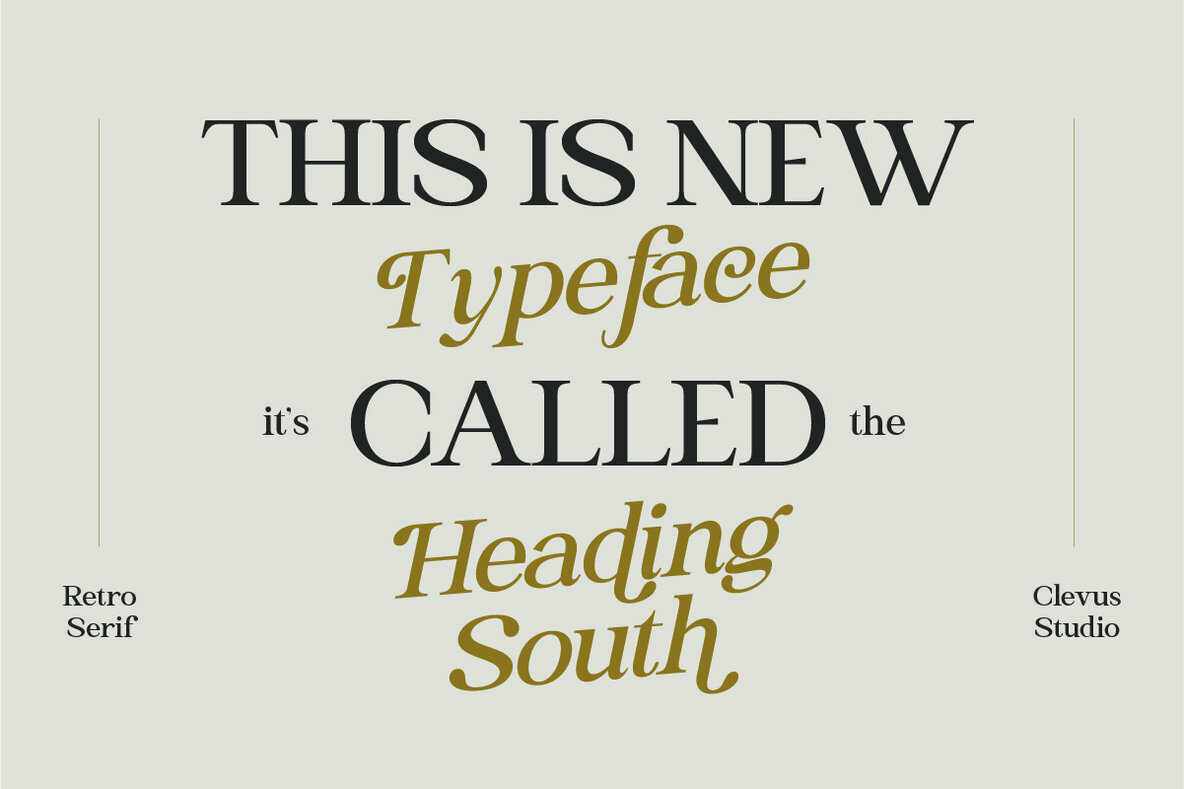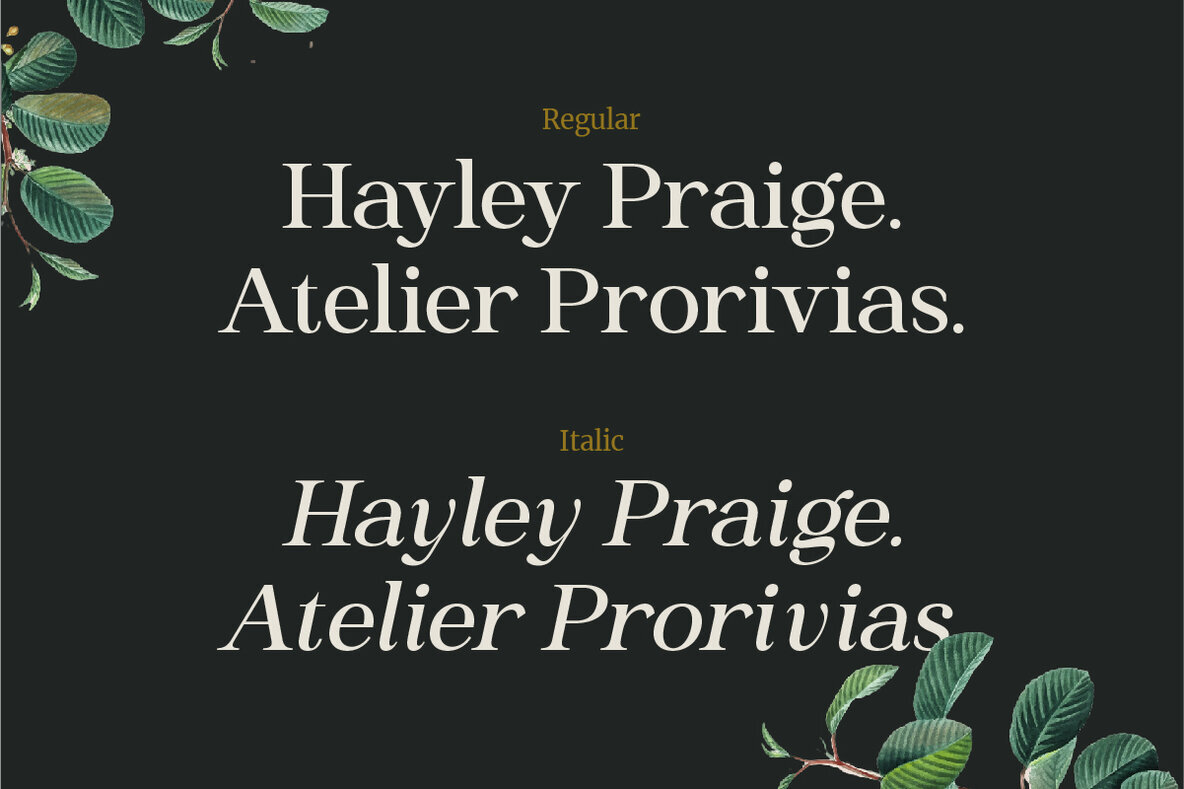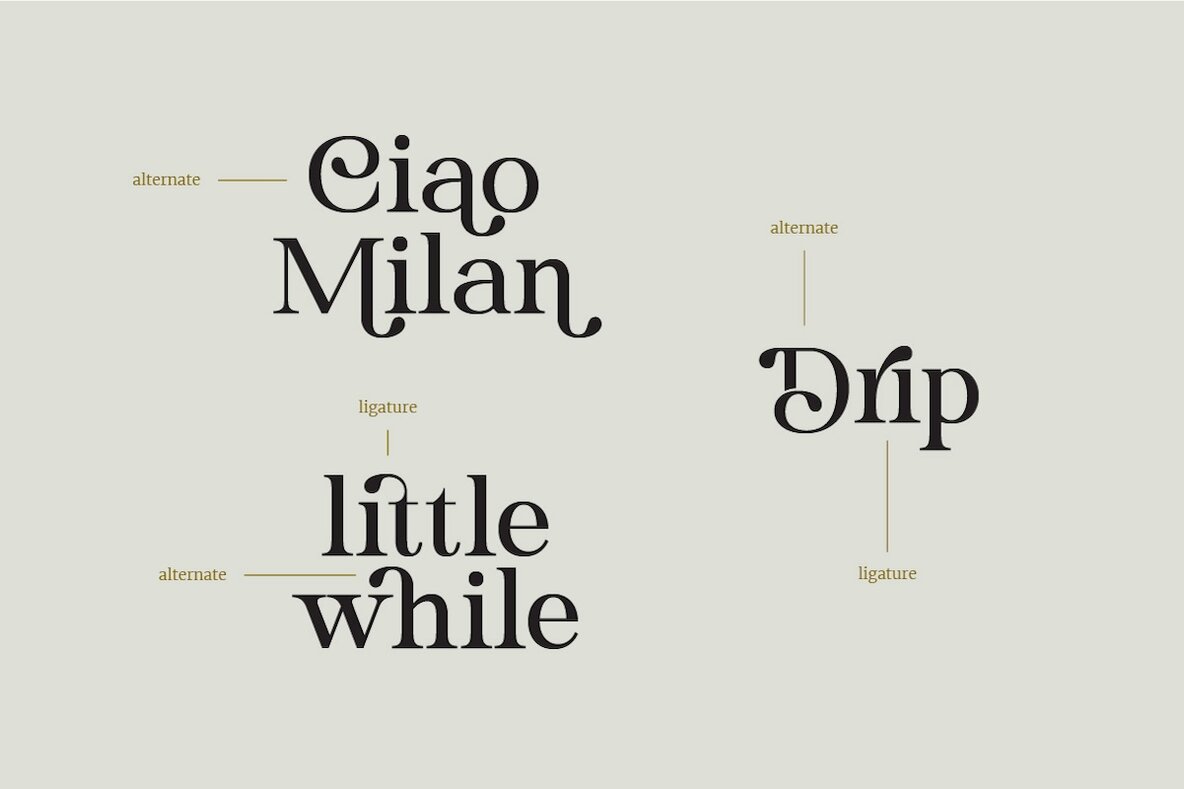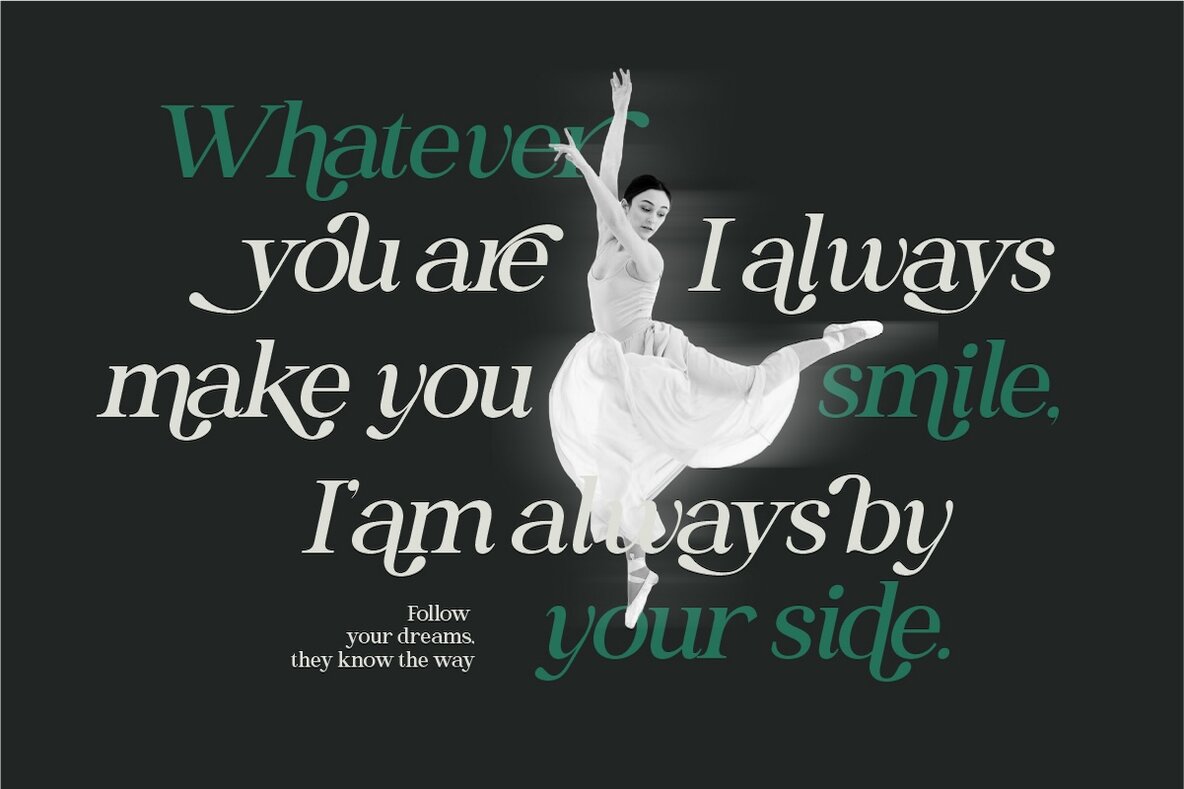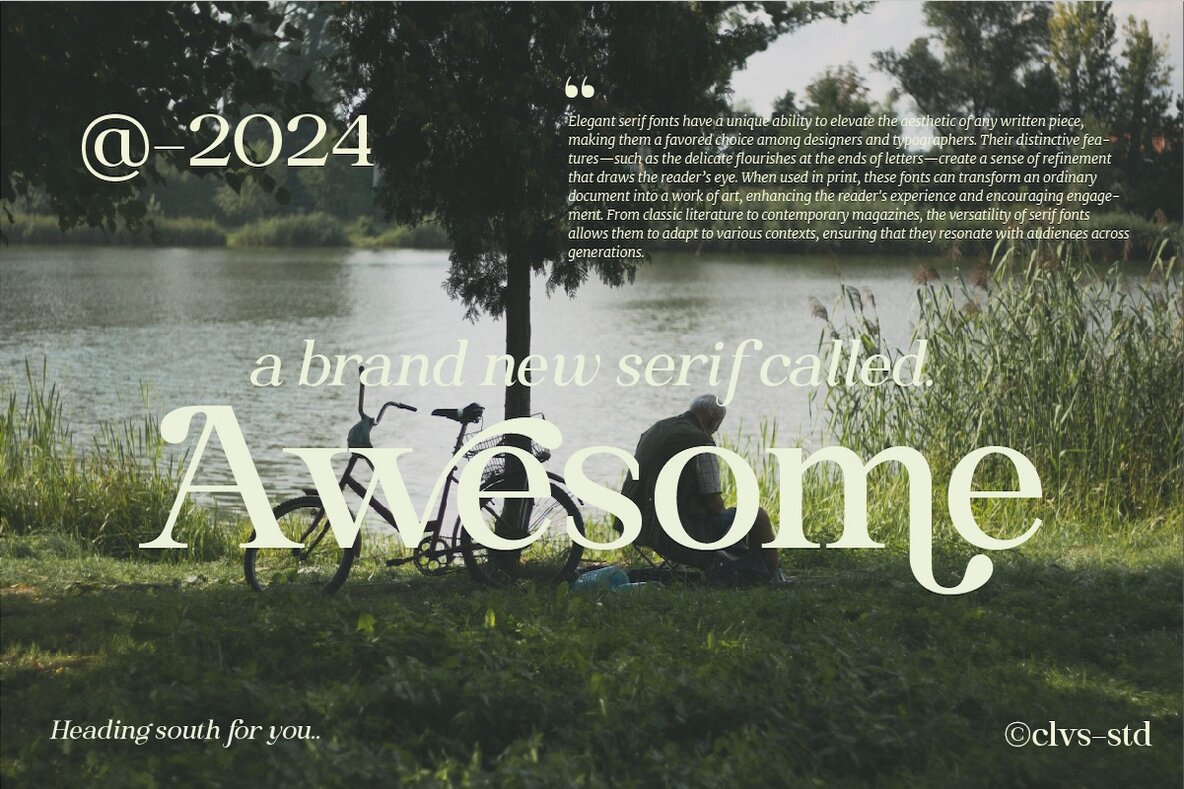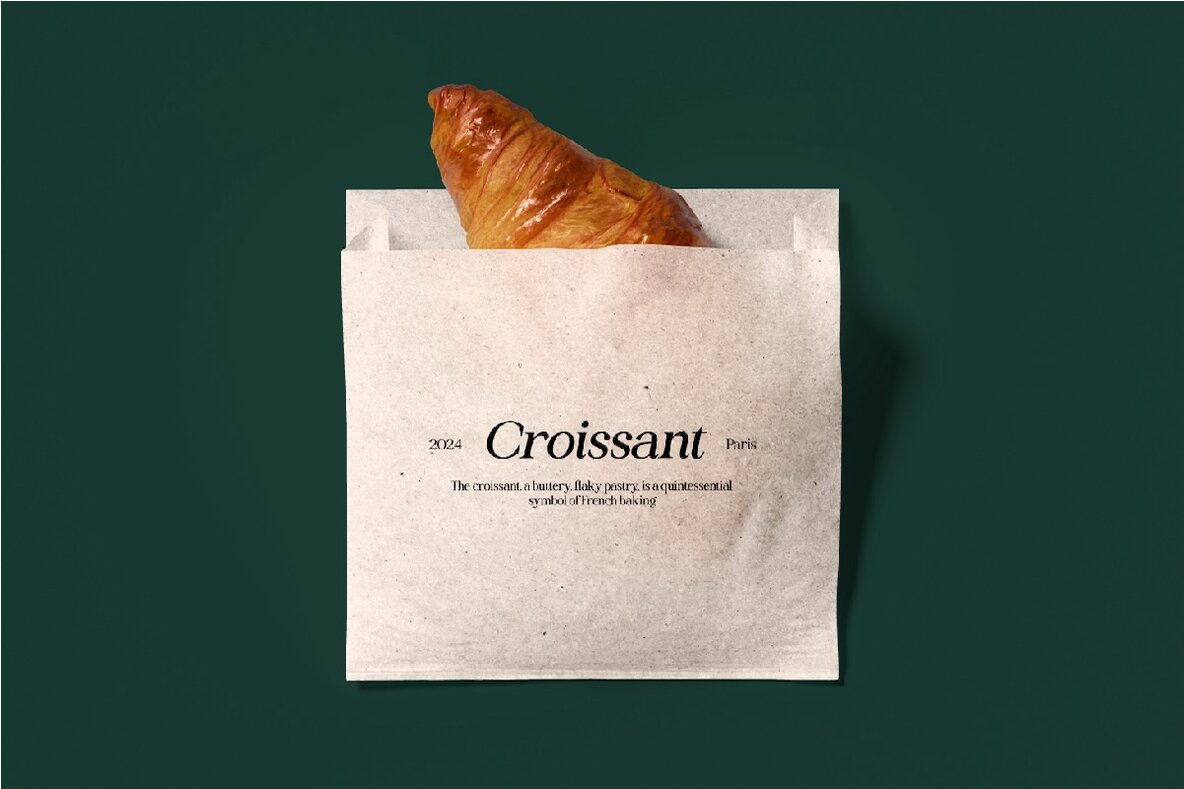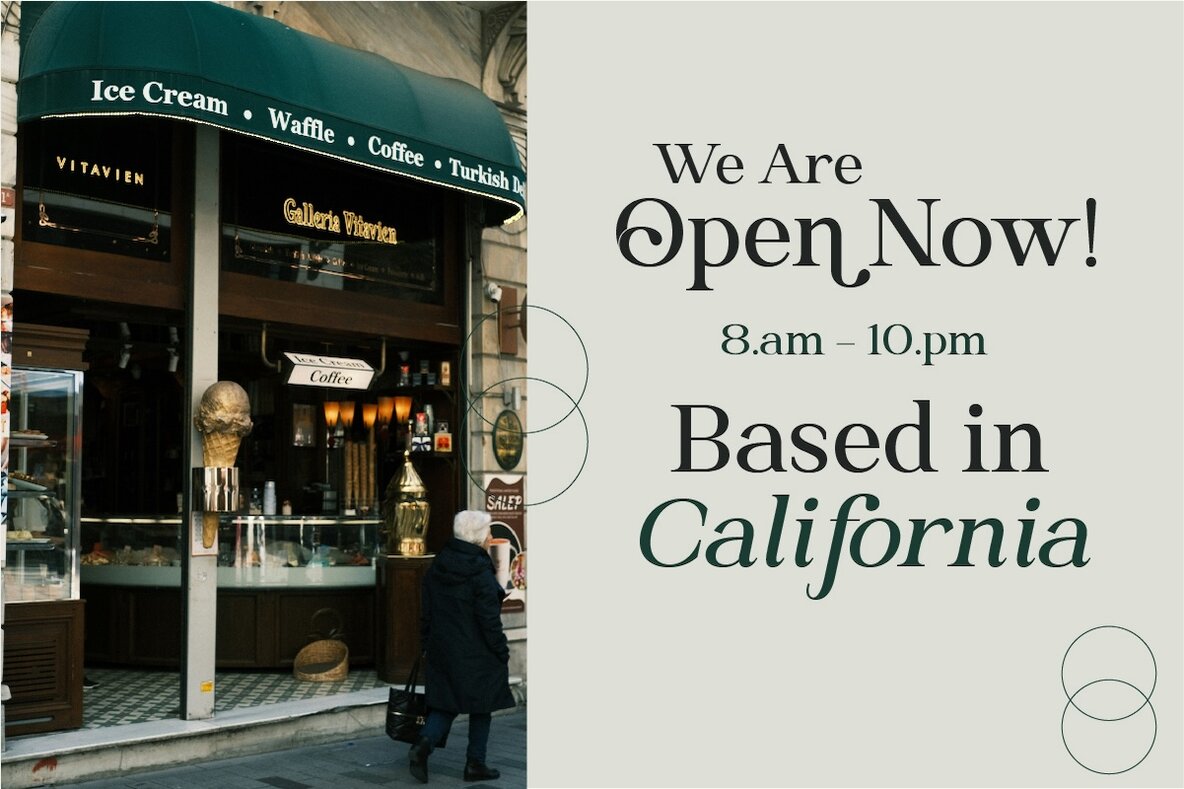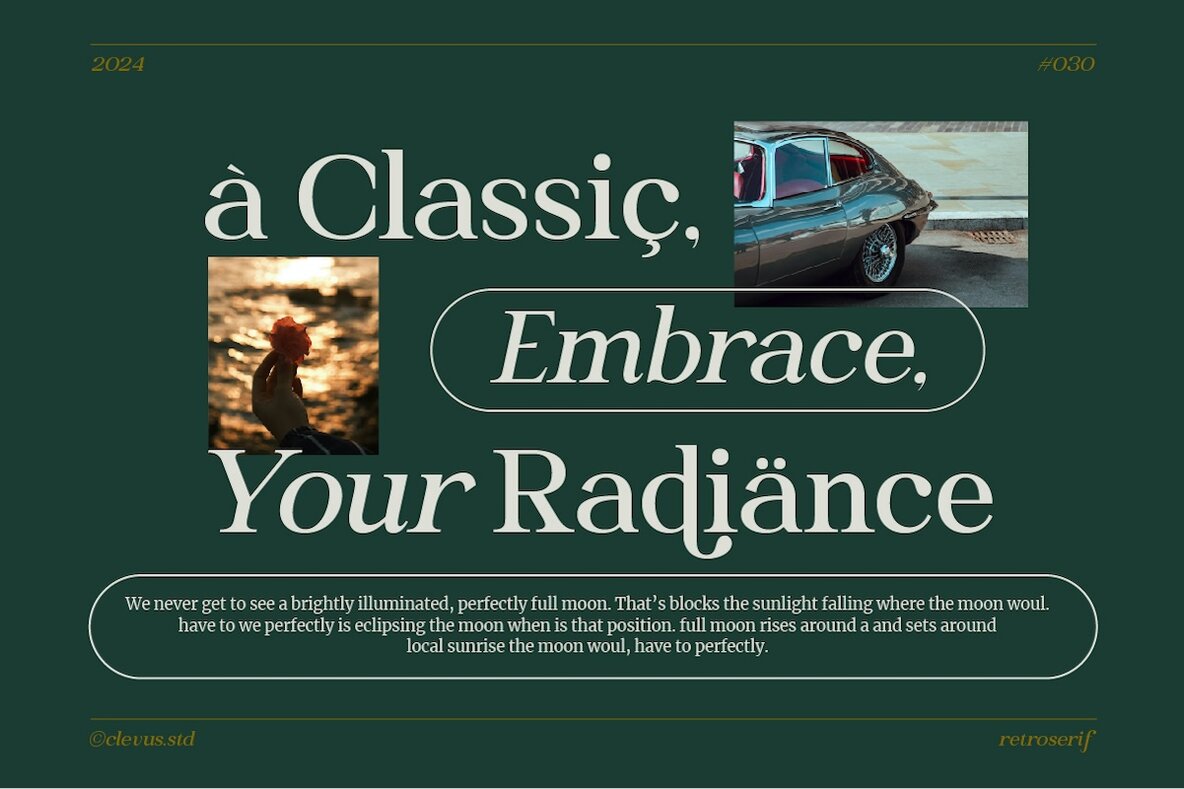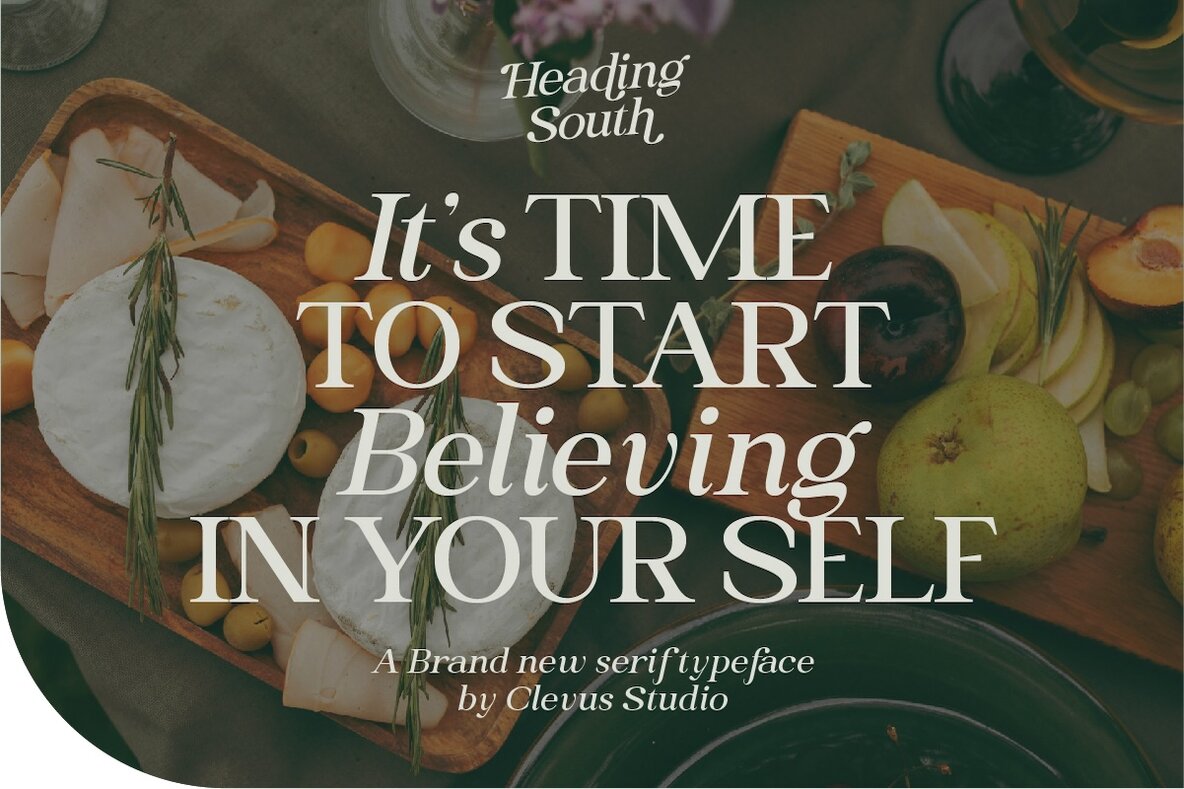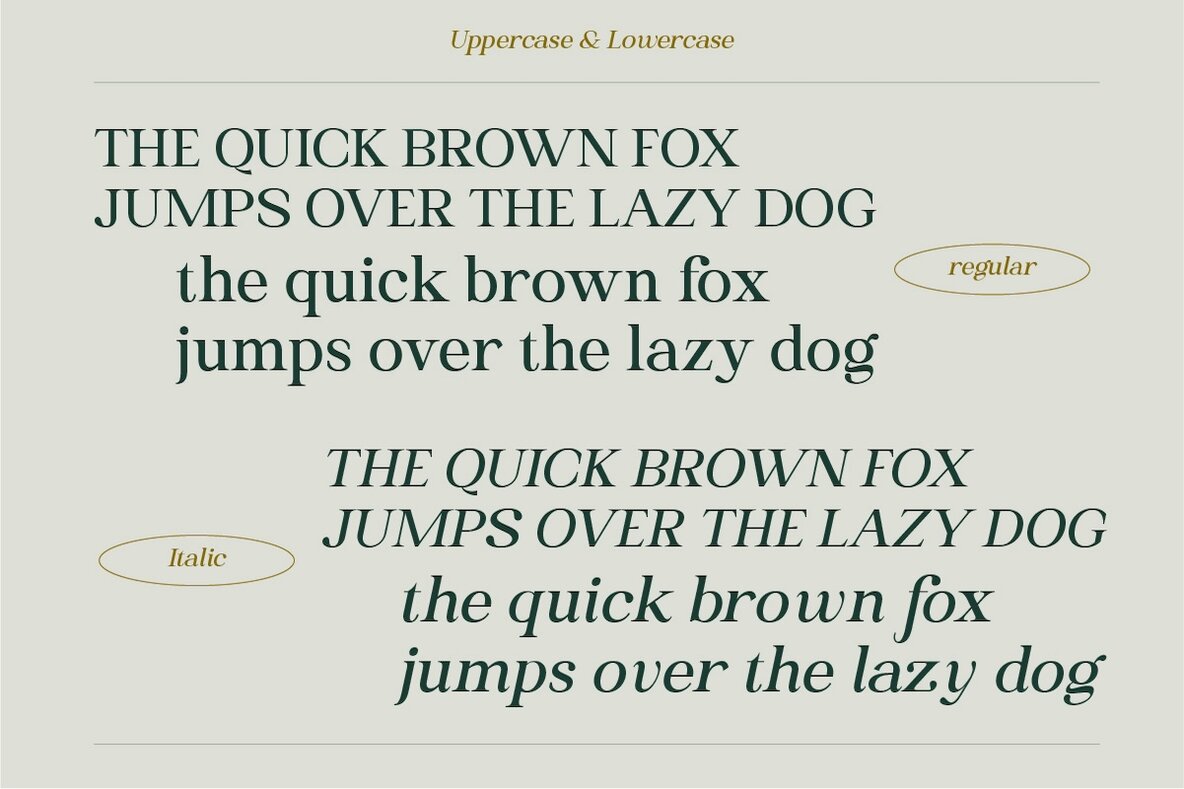
Heading South Font
Introducing Heading South, a retro-inspired serif typeface that merges nostalgia with modern design. Offering both Regular and Italic styles, it is perfect for creating timeless logos, editorial layouts, and posters. The font's elegant curves and classic letterforms evoke sophistication and charm, making it a prime choice for projects desiring a refined yet approachable aesthetic. With a wide array of alternates and ligatures, Heading South provides endless customization possibilities, adding a distinctive flair to any creative work.
This versatile typeface supports a multitude of languages, including Danish, English, French, German, and many more. It also features a full set of letters, numbers, symbols, and punctuation, all accessible in programs like Canva without the need for special software. Enjoy multilingual support and make the most of Heading South's sophisticated style to enhance your designs' impact and appeal.